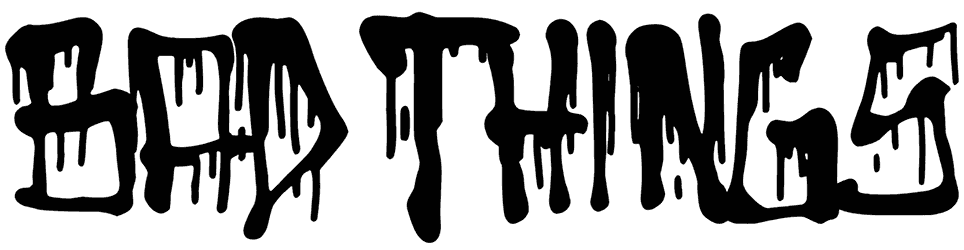
Bad Things Font
Bad Things’ loose, bleeding, unstructured letters can create a powerful visual impact anywhere a terrifying and perfect headline is needed. The scary alphabet of this horror font, which doesn’t include lowercase letters, evokes thoughts of ghosts, vampires, kidnappers, and darkness.
The angular characteristics of the letters in this terrifying font have made them shiver on the viewers’ bodies and have a unique effect on Halloween themes, crime movies, or books, and advertising products.